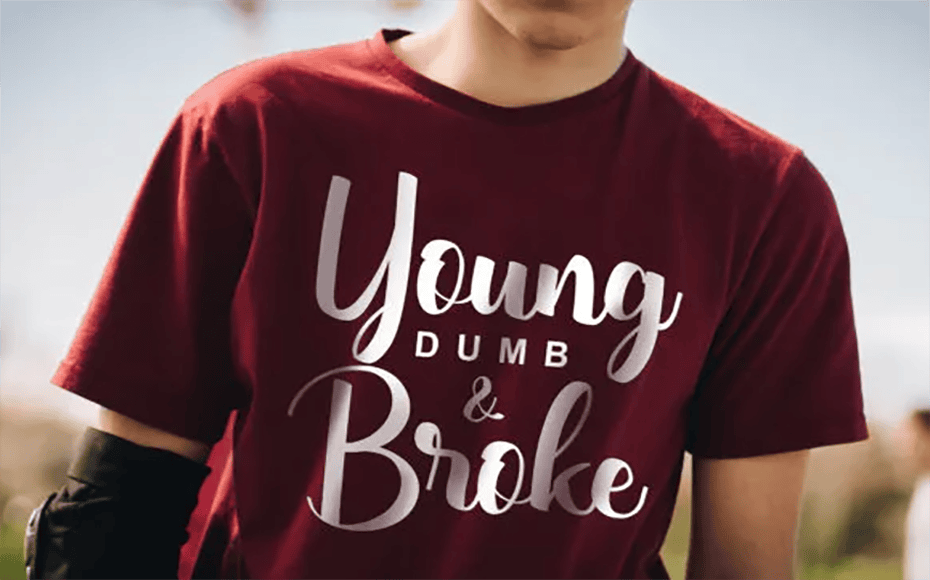
Sweet Lemonade Font is a sweet handmade typeface that features a clean and stylish design. The design of the font makes it most suitable for designing titles and headlines for posters and banners.
That unique Font has released on 17 March 2019 by Damarletter that is a graphic designer based in Indonesia.
The designer has added some interesting features to the typeface, such as bold and heavy letters, bold letters, and fancy touch.
So, that’s why people like to use this brush font because it’s easy to apply and easy to memorize. So, it’s ideal for giving the final touch of finesse to designer text.
It has a beautiful text layout as you should see in the pictures which enhances the quality of this font family.
The handwritten typeface is always perfect for any type of design project such as Branding projects, Logo designs, T-shirt designs, invitation card designs, banners, book covers, brochure layouts, social media posts, and many other situations.
Like a good pair, you can use it with other fonts like Mali Font by Cadson Demak and Sacramento Font by Astigmatic One Eye Typographic Institute
This amazing font offers only a single regular style along with True Type features. This font includes uppercase & lowercase letters, special characters, glyphs & swashes.